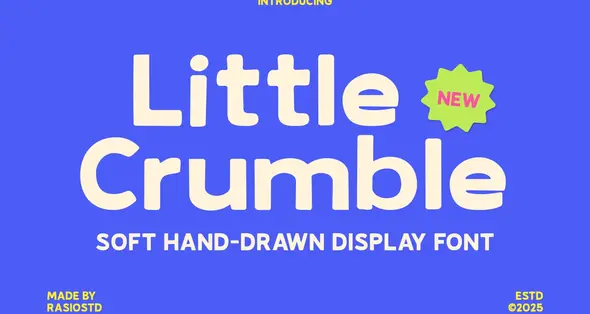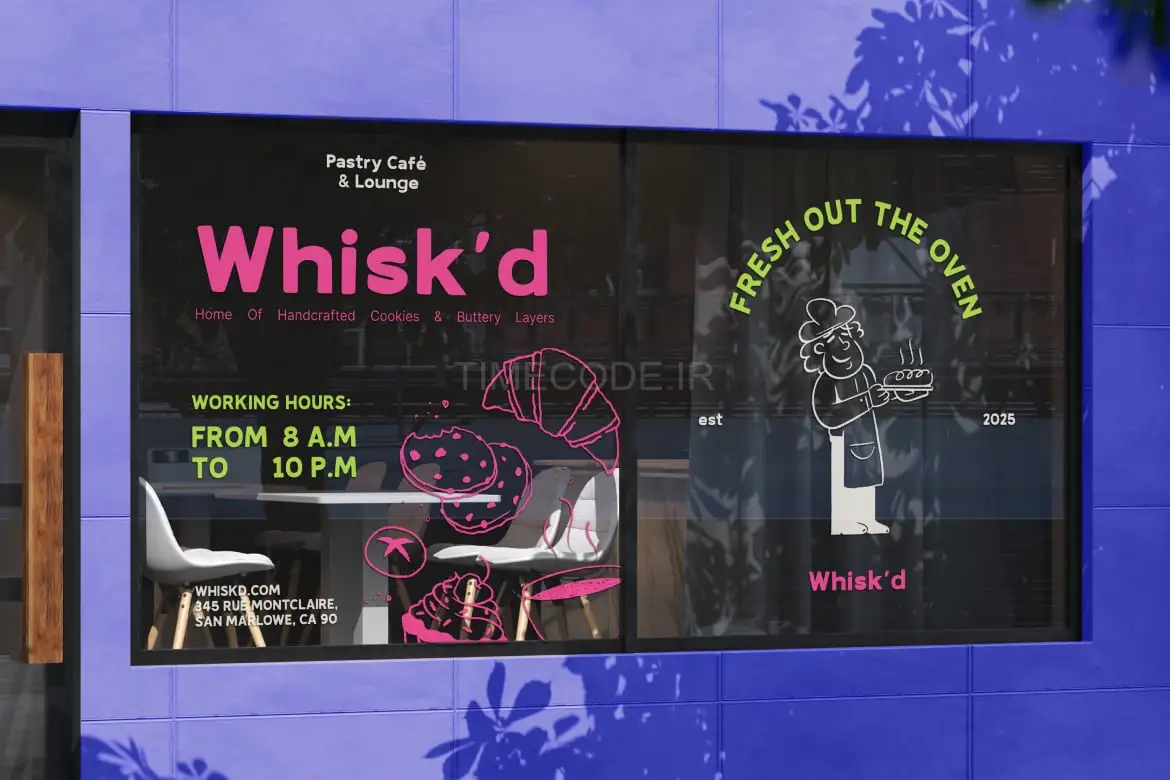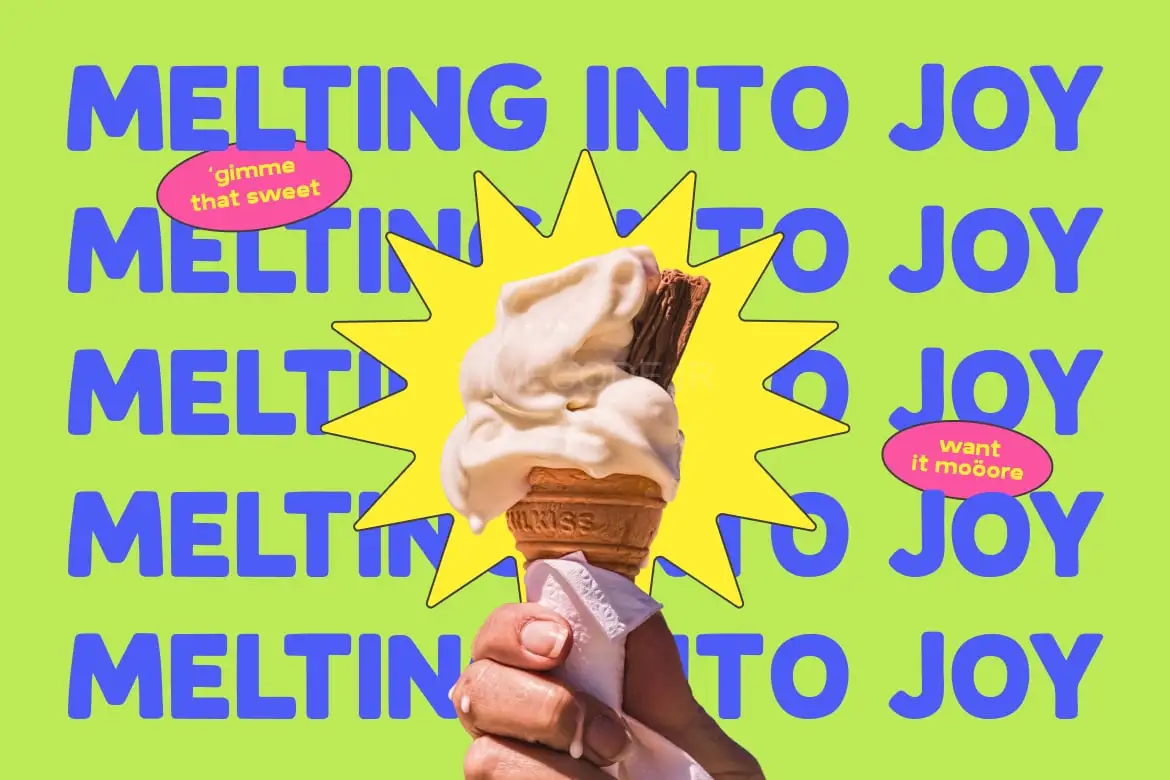
Little Crumble is a soft, rounded hand-drawn display font designed with a fun, friendly spirit. With its playful curves and bold, bouncy shapes, this font brings warmth and charm to any design. Perfect for packaging, food branding, kids' content, social media graphics, or any project needing a touch of whimsy, Little Crumble delivers both legibility and personality.
This all-caps font includes multilingual support, punctuation, and numerals, making it a versatile choice for creative projects.
Relevance an Use Cases Little Crumble is perfect for soft hand-drawn display fonts, playful branding, and food-themed visuals. It fits perfectly into cookie packaging, kids product branding, cheerful illustrations, and handmade goods labels. Its friendly and rounded appearance also suits creative business identities, dessert shop logos, and social media visuals. Little Crumble can be used in bakery packaging, children’s books, fun product tags, and family-oriented campaigns. Its smooth curves and approachable charm make it ideal for projects that require a warm, joyful, and personal tone.